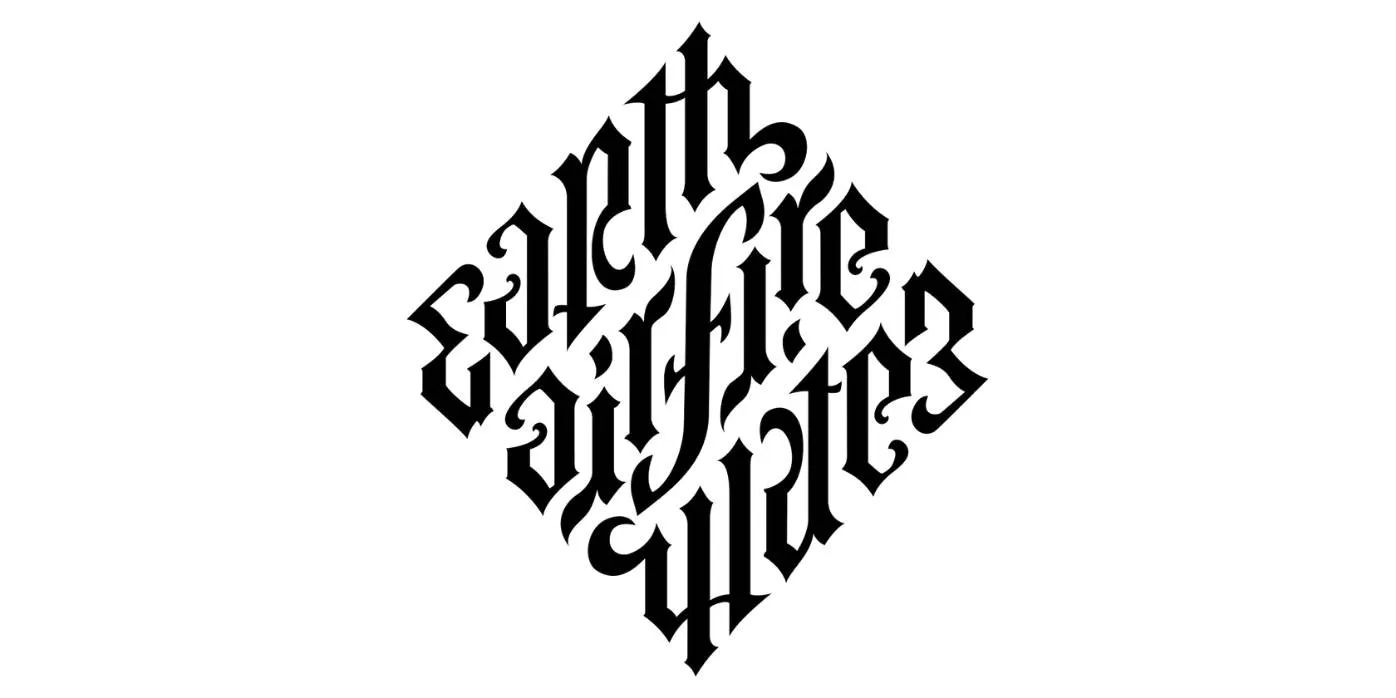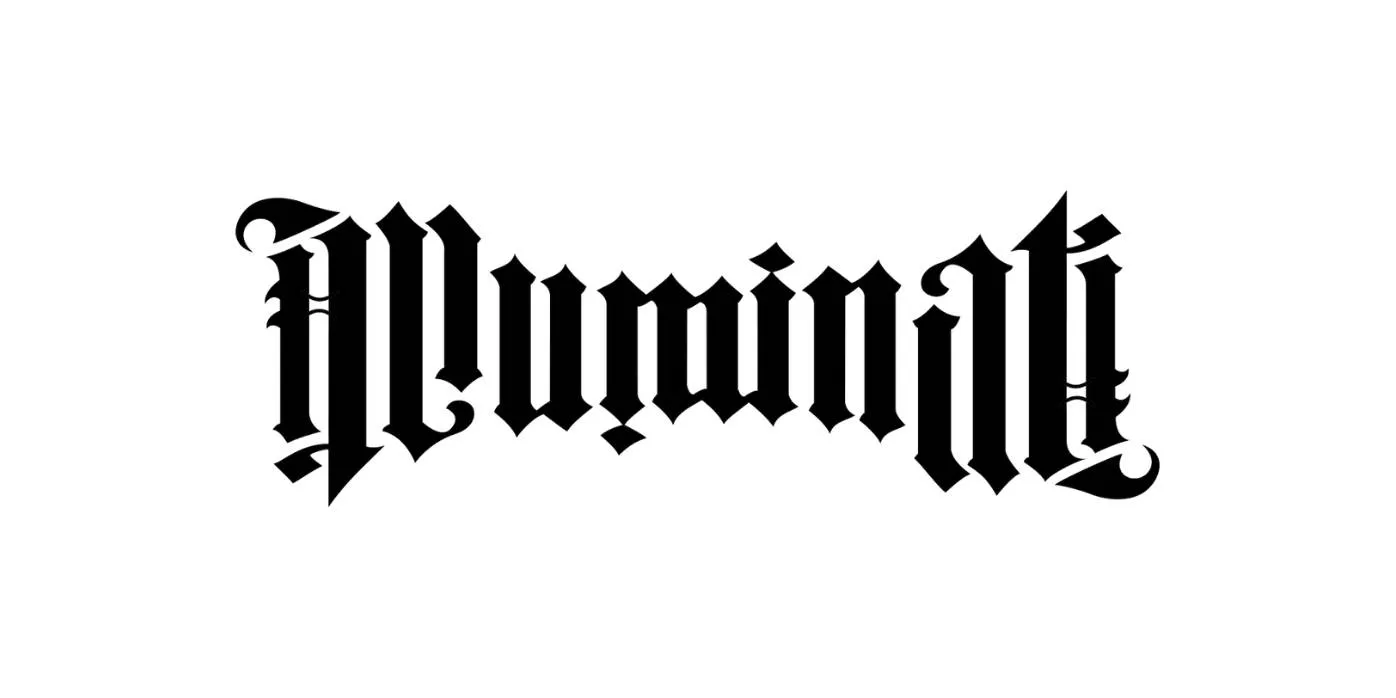
Ambigram Font
Ambigram Font was developed by Laura. This cute typeface belongs to the Script font family. This awesome Font is available in 2 weights: Regular and Italic. This cozy Font has a very playful look to it, making it the perfect font for creative designs.
The letters are connected, which gives the font a hand-drawn look. This Font is perfect for headlines, logos, and posters. This font is best for Adobe. This gorgeous Font is a great choice for projects that require a touch of personality.
The letterforms are unique and fun, so this font is perfect for designs that need to grab attention. This Font is free for personal use only. If you would like to use this font commercially, you must purchase a license. You can also utilize its copy and paste function.